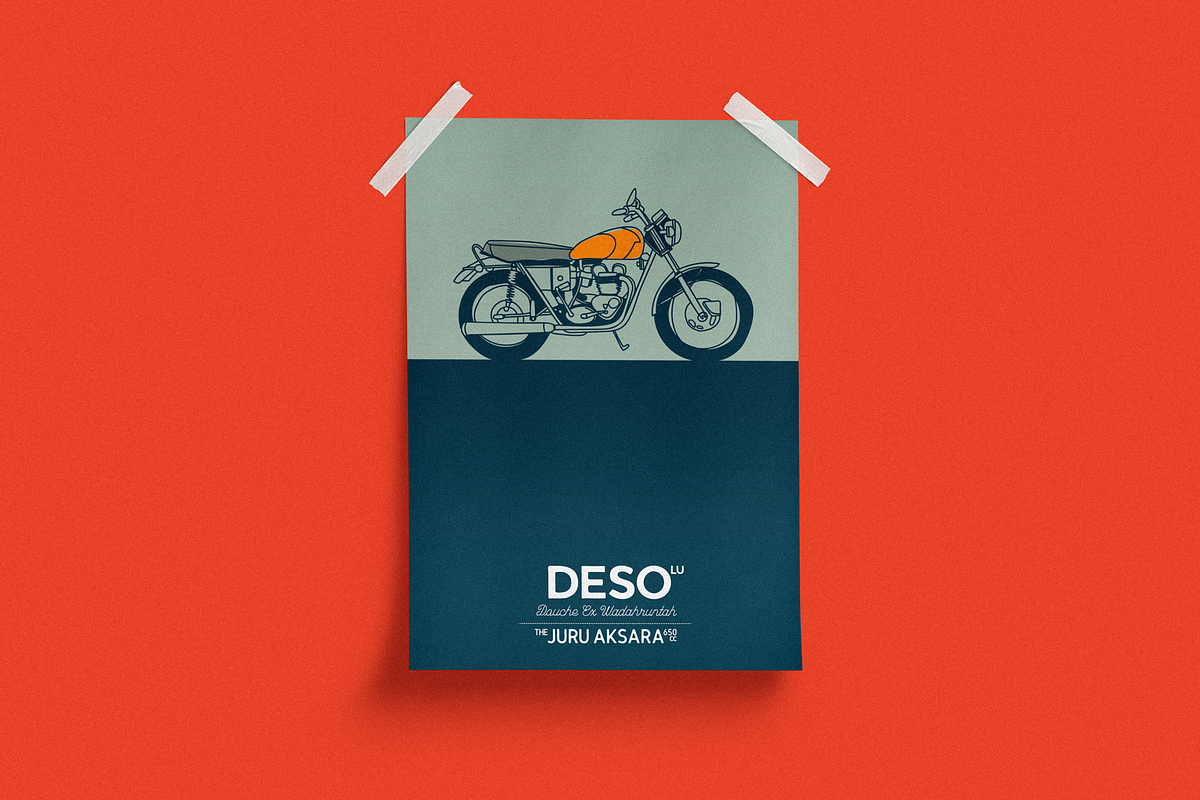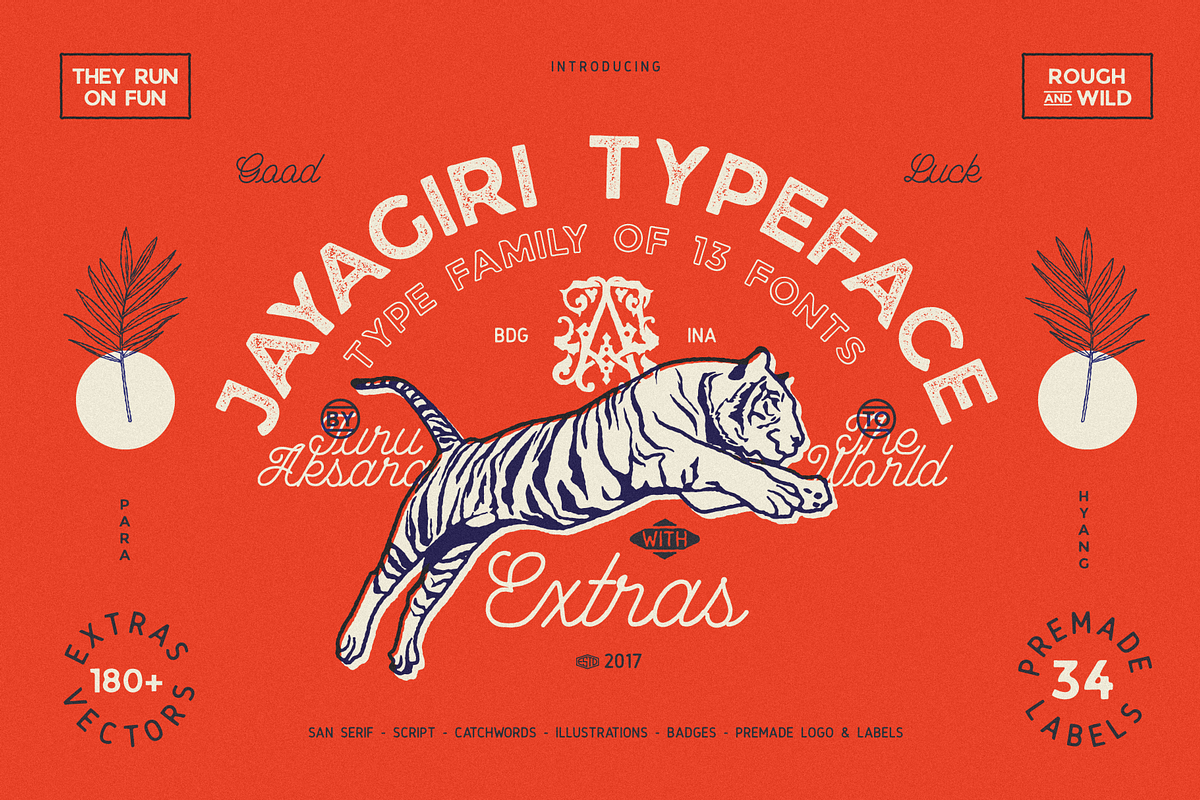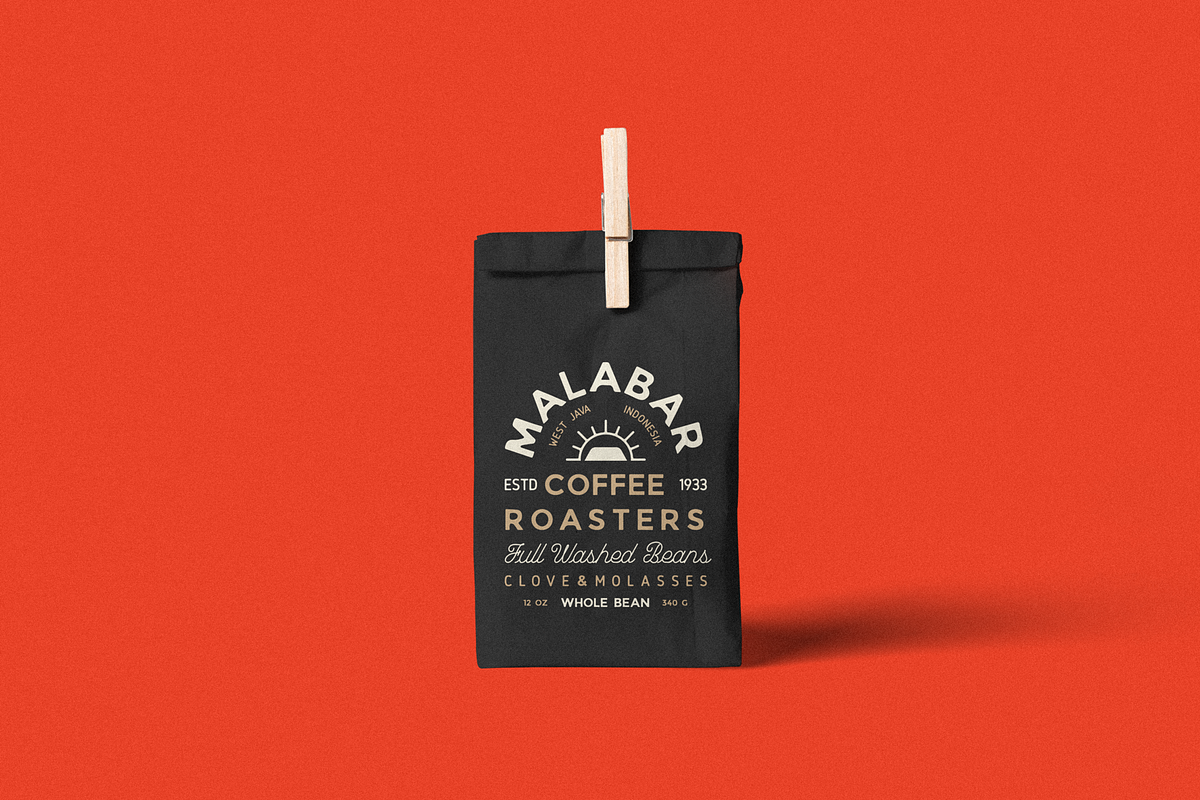
JA Jayagiri + Extras
A call for you visual designer, graphic designer, typographer, copywriter, or whatever you call it; Has arrived a masterpiece from the producers of digital types that are competent in their field. We are the Juru Aksara, proud to present Jayagiri Typeface; which is carved in such a way with profound meaning. Taking elements of local wisdom with a multi-dimensional taste, not just an artwork with minimum concept but full of maximum taste.
We are not provoking, but it's a vision, A vision for visual designers who want their works that are phenomenal, savage and wild like the character of Jayagiri Typeface which is taken from Sundanese/ Javanese/ Sanskrit which mean a "Big Mountain", in accordance with its name which is full of uniqueness, terrain and also a wildlife, Jayagiri trying to show all those characters into a typeface.
Jayagiri Typeface consists of 13 fonts;
- JA Jayagiri Sans Regular
- JA Jayagiri Sans Rough
- JA Jayagiri Sans Outline
- JA Jayagiri Stamp Regular
- JA Jayagiri Stamp Rough
- JA Jayagiri Stamp Outline
- JA Jayagiri Script Regular (with stylistic alternate & swash)
- JA Jayagiri Catchwords 1
- JA Jayagiri Catchwords 2
- JA Jayagiri Catchwords 3
- JA Jayagiri Catchwords 4
- JA Jayagiri Catchwords 5
- JA Jayagiri Catchwords 6
As well as its complement, we included more than 180 Vectors outlined and inverted:
- Earthlings (animals & plants)
- On Wheels (motorcycles, helmets, wheels)
- Oudoor Activities
- Badges & Banners
- Skulls
and also 34 Premade Logos that you can used as a label or t-shirt designs, or whatever you like!